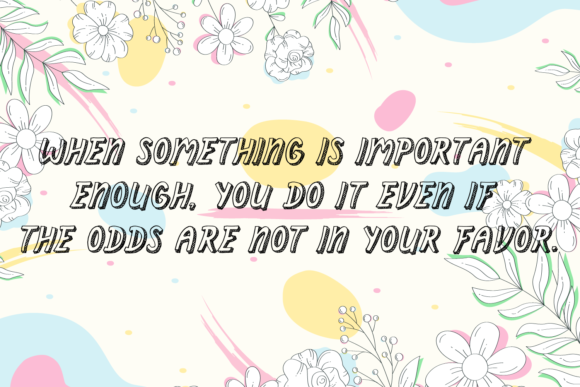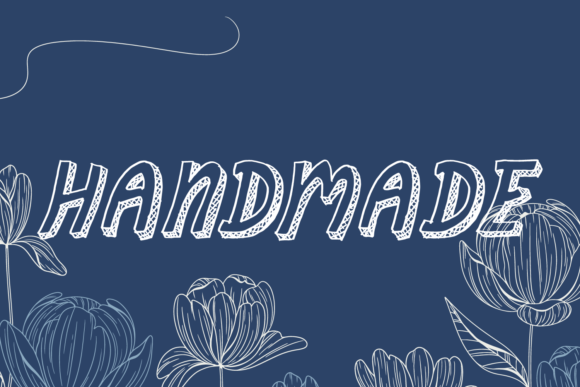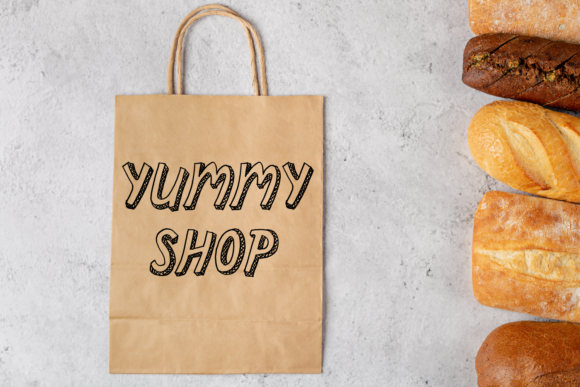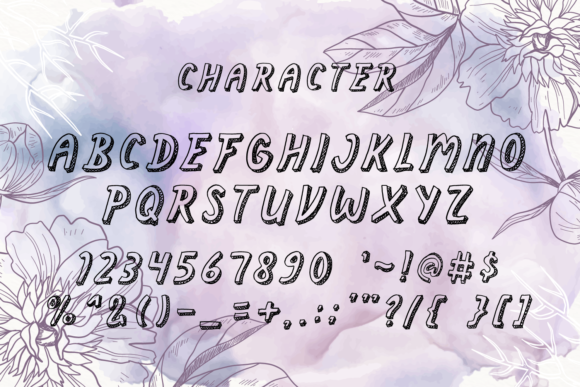
The Designer’s Delight: Exploring the Friendly World of Factory Spring Font
I’ll never forget the time I was working on a branding project for a new coffee shop. I had spent hours perfecting the logo, but something felt off. The font I had chosen just wasn’t doing justice to the quirky, artisanal vibe of the brand. I scrolled through font after font, but nothing seemed quite right. That’s when I stumbled upon Factory Spring Font. It was like a breath of fresh air – simple, friendly, and outlined to perfection. In this article, I’ll share my journey with Factory Spring Font, and explore its endless possibilities for designers, crafters, and creative hobbyists.
What I Love About Factory Spring Font
- ✨ Simple and friendly design that’s perfect for a wide range of projects
- ✅ Outlined style adds a touch of elegance and sophistication
- 💡 Highly versatile – works well for both digital and print designs
- 🎨 Endless possibilities for customization and creative experimentation
While Factory Spring Font is an amazing addition to any design project, there are a few things to keep in mind:
- 🤔 Limited character set – may not be suitable for projects requiring a wide range of special characters
- ⚠️ May not be the best choice for very small font sizes – outlined style can become too thin
Factory Spring Font was designed with the goal of creating a simple, yet elegant display font that’s perfect for a wide range of design projects. The designer drew inspiration from classic outlined fonts, with a modern twist. The result is a font that’s both friendly and sophisticated – perfect for designers, crafters, and creative hobbyists.
| Font Name | Factory Spring Font |
| Author | Planetz studio |
Q: What is Factory Spring Font best suited for?
A: Factory Spring Font is perfect for a wide range of design projects, including branding, packaging, posters, and more.
Q: Is Factory Spring Font available in different weights or styles?
A: Currently, Factory Spring Font is available in a single weight. However, the outlined style provides a range of possibilities for creative experimentation.